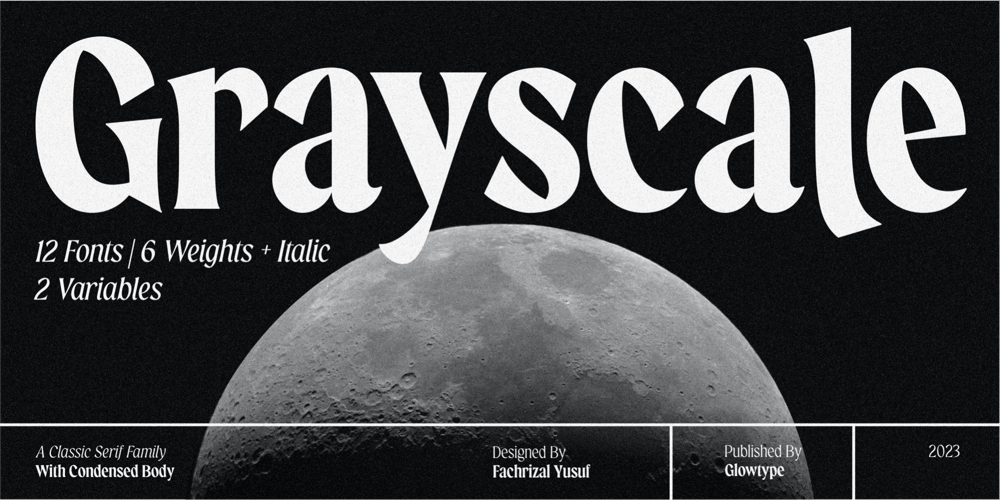
Grayscale Variable Font Family was designed by Fachrizal Yusuf and published by Glowtype. Grayscale Variable contains 2 styles and family package options. This is A Variable font from previous family Grayscale.Grayscale A Classic Serif Family was created to express things in a classic yet glamorous way. Inspired by classic serif typefaces around the world with a modern twist. With a thick body, it has a more dominant impression.Grayscale is perfect for display purposes such as editorial projects, Logo designs, Music Albums, Apparel Branding, product packaging, magazine headlines, or simply as a stylish text overlay on any background image.Cheers & enjoy! ๐